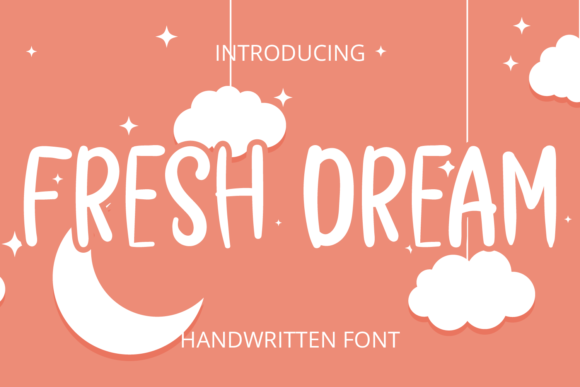
**Introducing Fresh Dream Font: The Whimsical Handwritten Font That Will Bring Your Projects to Life!**
Prepare to be captivated by the irresistible charm of Fresh Dream Font, a playful and cute handwritten font that will add a touch of whimsy and romance to all your creative endeavors. This enchanting script font was meticulously crafted by the talented designers at Planetz studio, who poured their hearts into creating a font that would inspire and delight.
With its graceful curves and charming imperfections, Fresh Dream Font perfectly embodies the essence of handwritten calligraphy. Each letter dances across the page with a carefree elegance, as if it were penned by the hand of a skilled calligrapher. The result is a font that exudes warmth, personality, and a touch of nostalgia.
Imagine the possibilities that await you with Fresh Dream Font at your fingertips. Create stunning brochures that captivate your audience with their unique and eye-catching design. Craft heartfelt invitations that convey the joy and excitement of your special occasion. Design enchanting greeting cards that will bring a smile to the faces of your loved ones. With Fresh Dream Font, the possibilities are endless!
Whether you're a seasoned designer or just starting your creative journey, Fresh Dream Font is the perfect choice for adding a touch of magic to your projects. Its versatility knows no bounds, making it suitable for a wide range of design applications. Use it to create whimsical logos that stand out from the crowd, design eye-catching social media graphics that engage your followers, or craft beautiful websites that leave a lasting impression.
**Here's a sneak peek into the enchanting world of Fresh Dream Font:**
* Create enchanting brochures that will leave a lasting impression.
* Craft heartfelt invitations that convey the joy and excitement of your special occasion.
* Design whimsical logos that stand out from the crowd.
* Create eye-catching social media graphics that engage your followers.
* Craft beautiful websites that leave a lasting impression.
* Add a touch of whimsy and romance to all your creative endeavors.